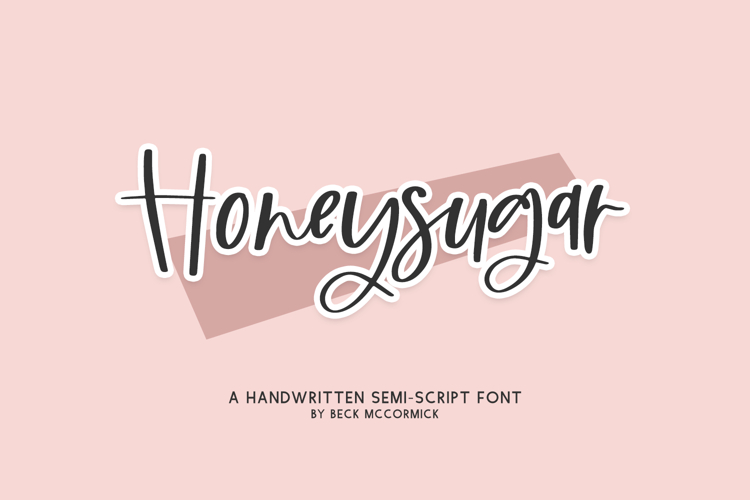
Introducing Honeysugar, a cute modern calligraphy font.
Honeysugar is best for:
- feminine, crafty projects with your Cricut or Silhouette machine, or your SVG design business
- farmhouse decor and crafts
- digital planners & apps like Goodnotes
- website design + website accents, blog design
- feminine graphic tee shirt design & other apparel